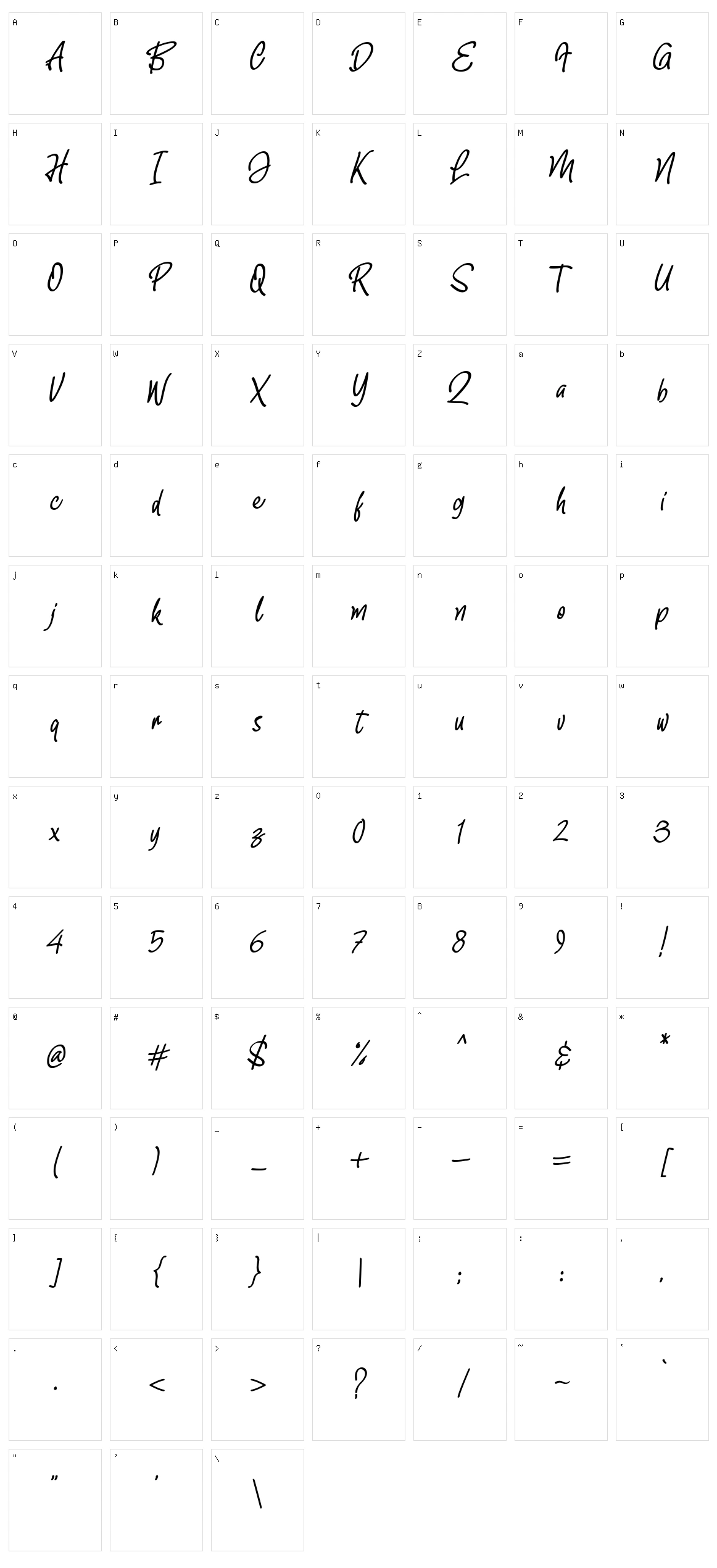
The free font Midsummer is carefully designed by Nico Muslib, showcasing a thoughtful balance of creativity and usability and falls under the Script font style. When you download the ZIP file, it contains only 25.81 KB of font files, making it lightweight and quick to download. Please review the license details below to understand permitted usage and distribution rights. If license information is not available, we recommend using this font for personal projects only or contacting the author directly for commercial usage permissions.